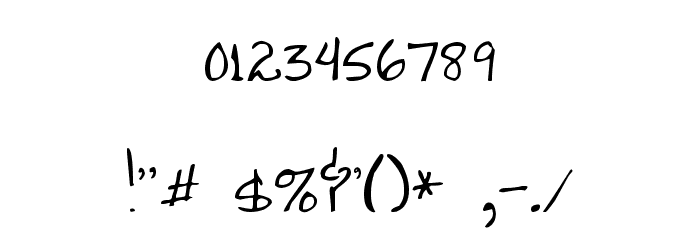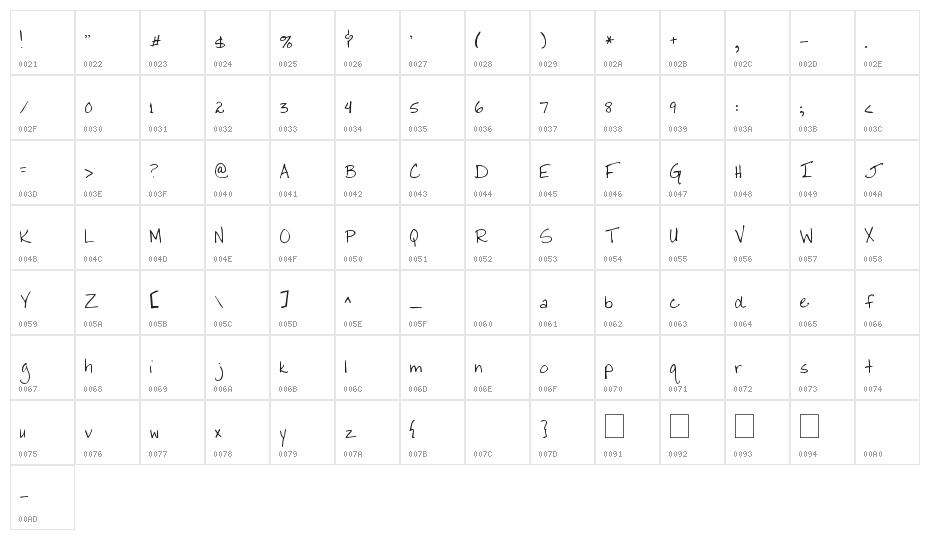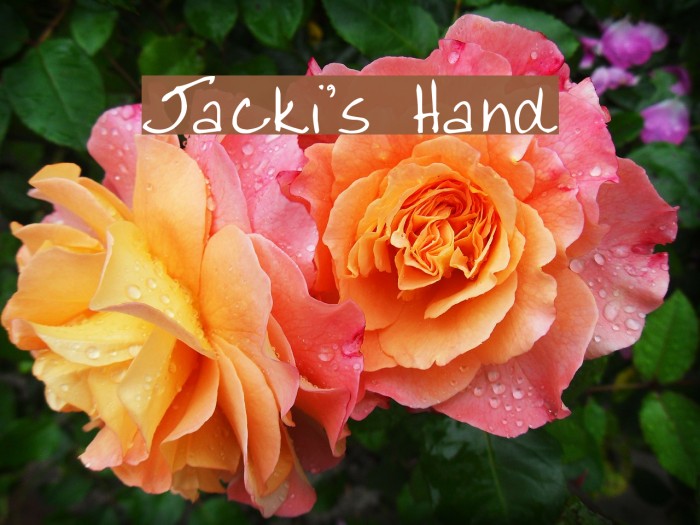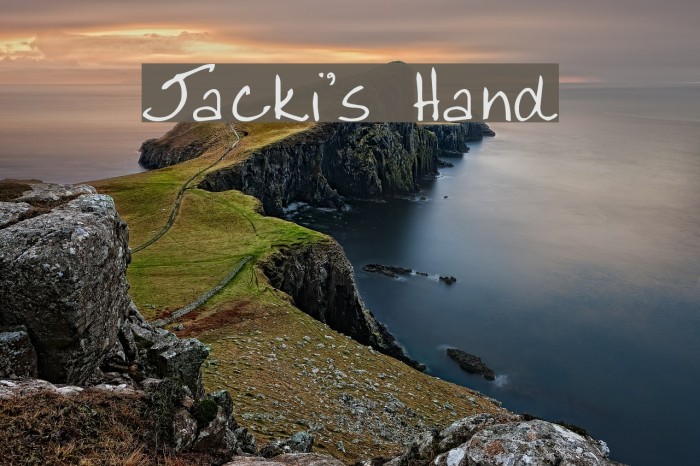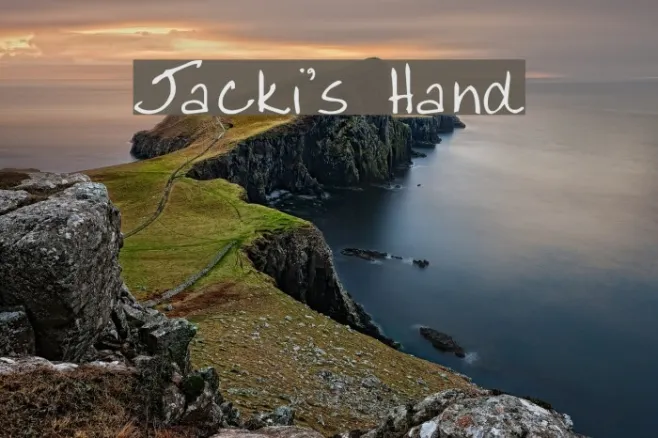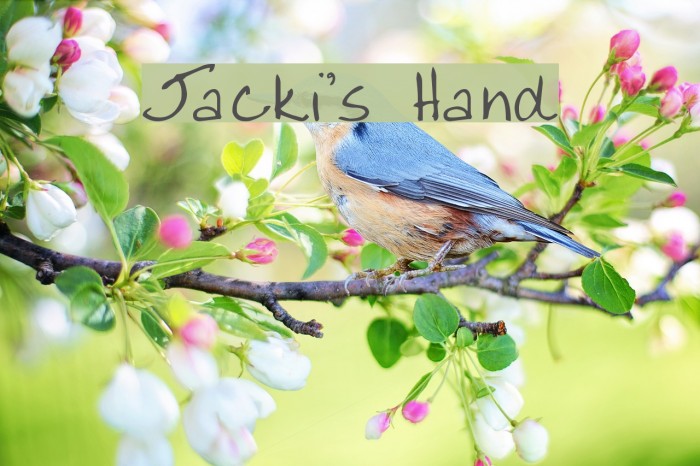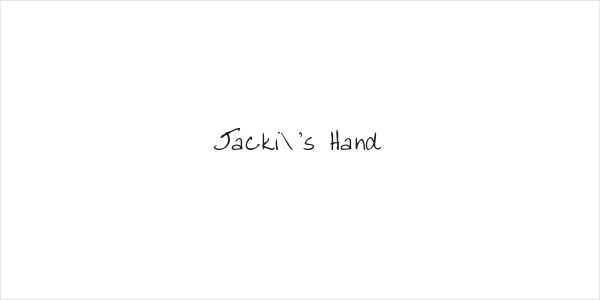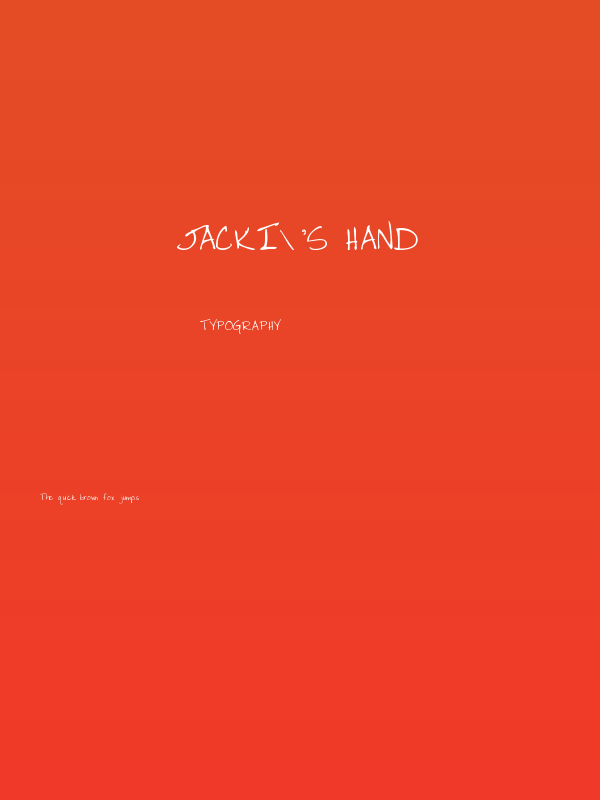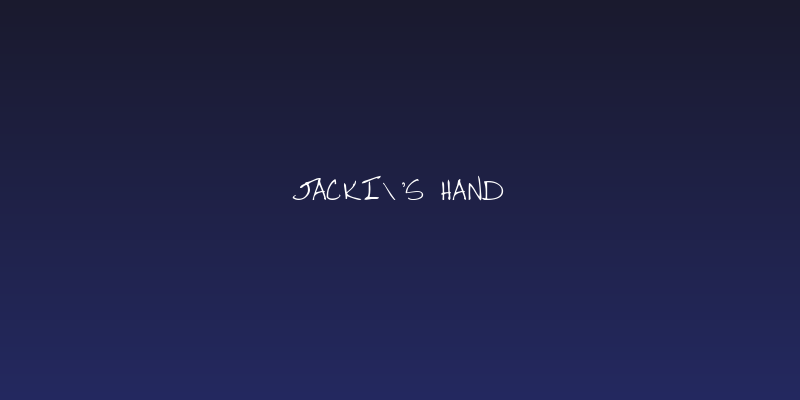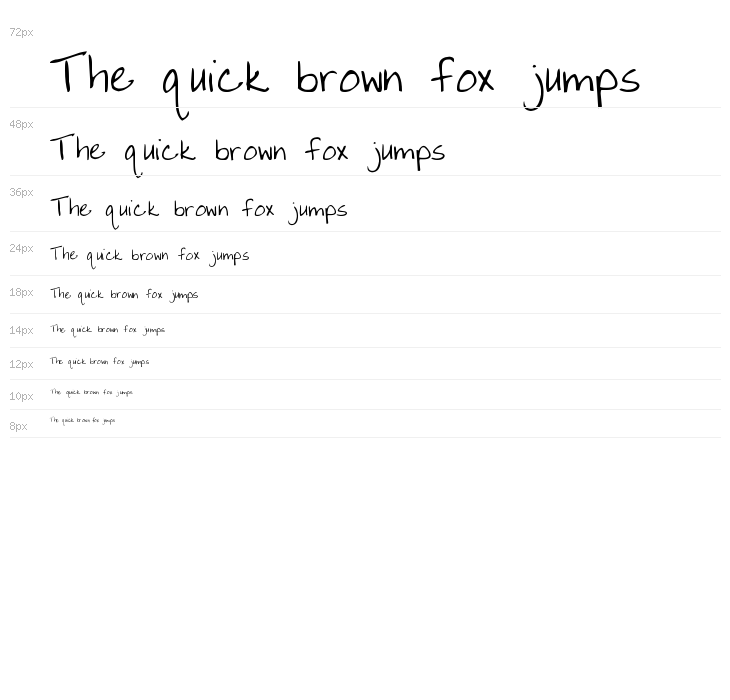
Jacki's Hand Font
Jacki's Hand Description
This font features a playful and casual handwritten style, characterized by its irregular strokes and slightly tilted letters. The uppercase letters are bold and prominent, while the lowercase letters maintain a consistent flow, adding to the font's informal charm. The numbers and special characters are crafted with the same whimsical touch, making them blend seamlessly with the alphabet. The overall appearance is friendly and approachable, suitable for projects that require a personal or informal tone.
| Use Case | Logos, Invitations, Personal Projects |
| Proposed Projects | Ideal for greeting cards, personal blogs, children's books, and informal branding projects. |